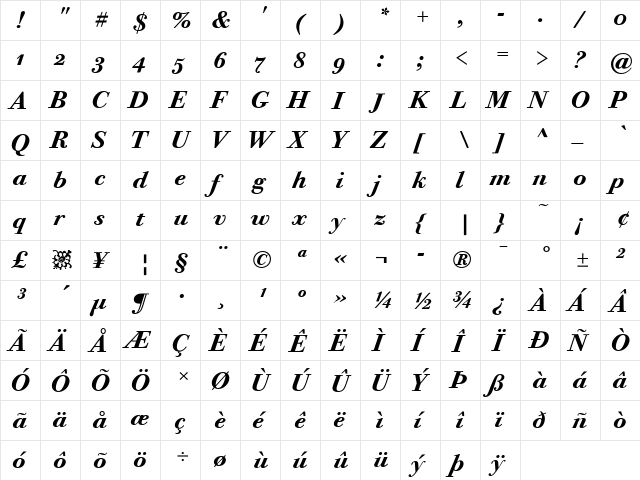
Bodoni Twelve ITC Bold Italic
Design Context for Bodoni Twelve ITC Typeface
Bodoni Twelve ITC is a composed and adaptable typeface that performs quietly and consistently across a wide range of design contexts. The dynamic lean of this cut emphasises speed and emphasis in any layout. The heavy weight commands attention and anchors typographic hierarchies.
Pro Tip: Use Bodoni Twelve ITC for emphasis, pull quotes, and subheadings where its slanted energy can add rhythm to the layout.